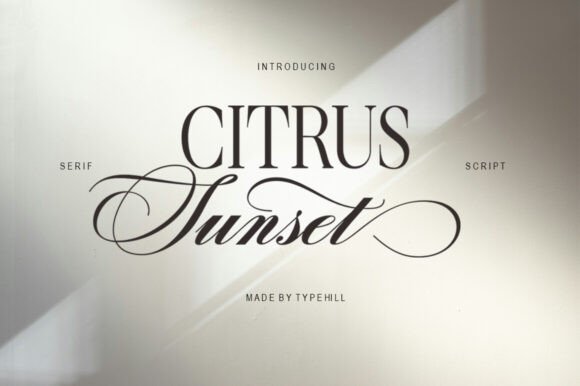
Citrus Sunset Font: Elevate Your Design with Sophistication and Personality
In the world of typography, fonts play a crucial role in conveying the tone and aesthetic of a design. Among the numerous font options available, Citrus Sunset Font stands out as a unique and versatile choice. This 2-font script and serif font combination offers a dynamic contrast that can add sophistication and personality to any design. In this article, we’ll explore the features and benefits of Citrus Sunset Font, and how it can elevate your design to the next level.
What is Citrus Sunset Font?
Citrus Sunset Font is a carefully crafted font duo that consists of a script font and a serif font. This thoughtful combination allows designers to create visually appealing and engaging designs that showcase a perfect balance of elegance and playfulness. The script font features flowing lines and cursive connections, while the serif font provides a sturdy and classic foundation.
Key Features of Citrus Sunset Font
- Multi-Language Support: Citrus Sunset Font includes support for multiple languages, making it an excellent choice for global brands and designers who work with clients from diverse linguistic backgrounds.
- OpenType Features: The font features OpenType with alternates, ligatures, and stylized characters. This allows designers to mix and match letter pairs to suit their design needs, adding a touch of creativity and uniqueness to their work.
- Alternates and Ligatures: With a range of alternate characters and ligatures, designers can customize the font to fit their design style. This feature is particularly useful for creating logos, headlines, and other display text.
- Ornamentation: Citrus Sunset Font includes a touch of ornamentation, which adds an extra layer of elegance to the design. This feature is perfect for designers who want to create sophisticated and high-end visuals.
Benefits of Using Citrus Sunset Font
Citrus Sunset Font offers several benefits that make it an attractive choice for designers. Some of the key advantages include:
- Sophistication and Personality: The font’s unique combination of script and serif elements adds a touch of sophistication and personality to any design.
- Versatility: Citrus Sunset Font is suitable for a wide range of design applications, from branding and advertising to packaging and digital media.
- Customization: With its range of alternates, ligatures, and stylized characters, designers can customize the font to fit their design needs.
- Elegance: The font’s ornamentation feature adds an extra layer of elegance, making it perfect for high-end designs.
Design Applications for Citrus Sunset Font
Citrus Sunset Font is a versatile font that can be used in various design applications. Some of the most popular uses include:
- Branding and Logo Design: The font’s unique combination of script and serif elements makes it an excellent choice for branding and logo design.
- Advertising and Marketing: Citrus Sunset Font is perfect for creating eye-catching headlines and display text for advertising and marketing campaigns.
- Packaging Design: The font’s elegance and sophistication make it suitable for packaging design, particularly for luxury brands.
- Digital Media: Citrus Sunset Font can be used in digital media, including social media graphics, website headers, and email marketing campaigns.
Tips for Using Citrus Sunset Font
To get the most out of Citrus Sunset Font, here are some tips to keep in mind:
- Experiment with Font Combinations: Try pairing Citrus Sunset Font with other fonts to create a unique and visually appealing design.
- Use Alternates and Ligatures: Take advantage of the font’s alternates and ligatures to add customization and personality to your design.
- Adjust Font Size and Color: Experiment with different font sizes and colors to create visual hierarchy and emphasis.
- Keep it Simple: Don’t overdo it – keep your design simple and clean to let the font shine.
Citrus Sunset Font is a unique and versatile font duo that offers a dynamic contrast that can add sophistication and personality to any design. With its range of features, including multi-language support, OpenType features, and ornamentation, this font is perfect for designers who want to create visually appealing and engaging designs. Whether you’re working on branding, advertising, packaging, or digital media, Citrus Sunset Font is an excellent choice.